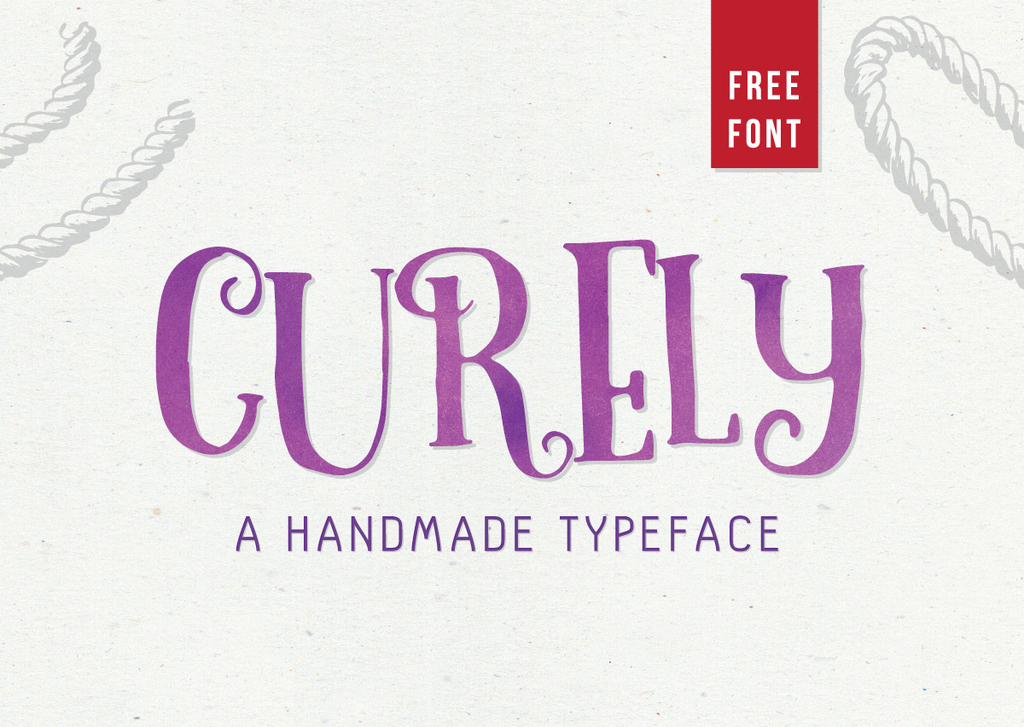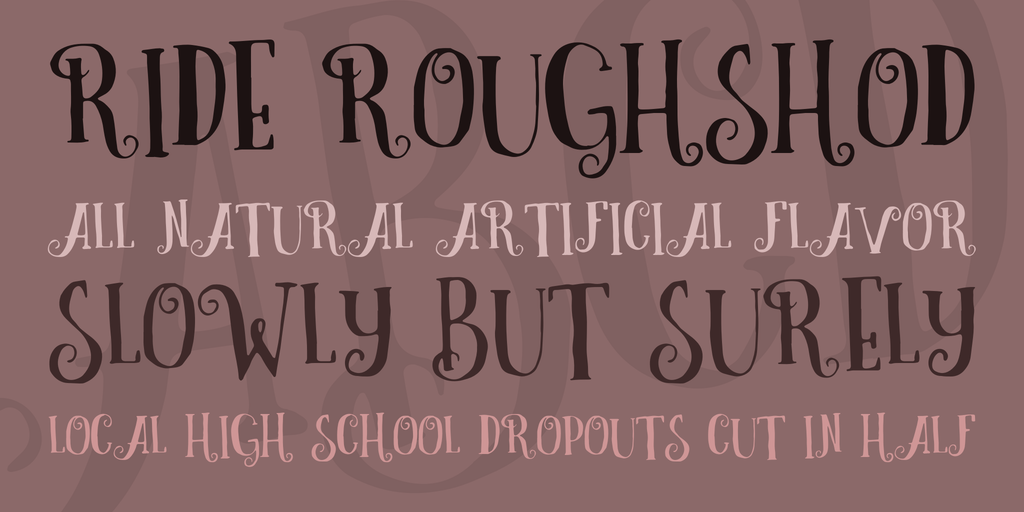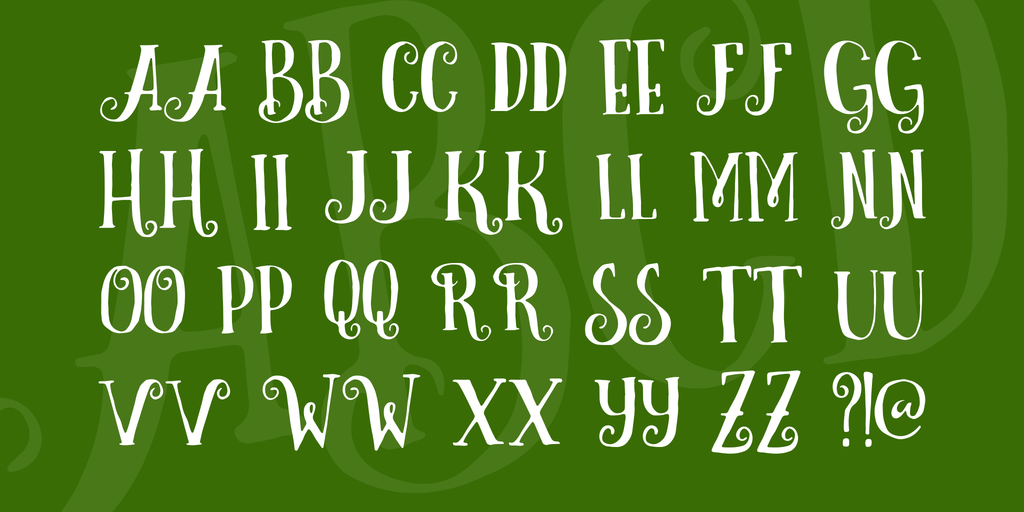
Curely Font
Curely Font Made by konstantinestudio
Curely is a handmade decorative typeface inspired from a girly stuffs and cuteness overload in every single letters on it, fit for your cute and sweet design project and stuffs 😉